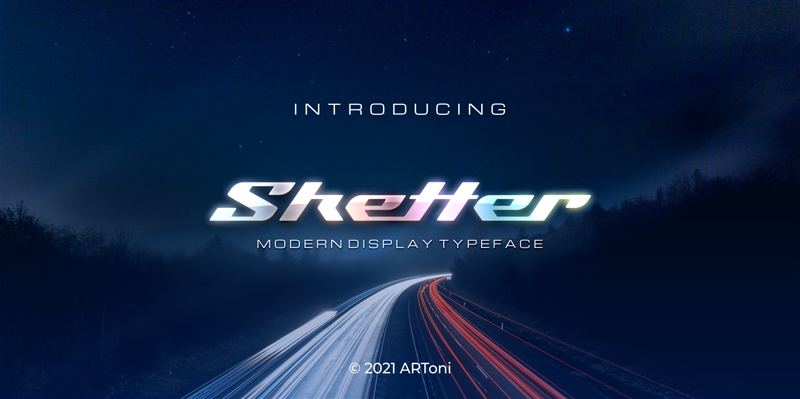
Preview and download Sketter Font. Created by Anthonie Van Hayu in Techno Sci-fi styles with Free for personal use license.
Sketter is a modern display typeface. Get inspired by aerodynamic. the name adopted from skeeter, skater and scooter those darted and weaved. By installing or using this font, you are agree to the Product Usage Agreement: This font is ONLY for PERSONAL USE. NO COMMERCIAL USE ALLOWED! You are requires a license for PROMOTIONAL or COMMERCIAL use. Any question feel free to ASK ayuda.smd@gmail.com THANKS ------------------- INDONESIA: Dengan meng-install font ini, anda dianggap mengerti dan menyetujui semua syarat dan ketentuan penggunaan font dibawah ini: 1. Font ini hanya dapat digunakan untuk keperluan "Personal Use", atau untuk keperluan yang sifatnya tidak "komersil", alias tidak menghasilkan profit atau keuntungan dari hasil memanfaatkan/menggunakan font saya. Baik itu untuk individu, Agensi Desain Grafis, Percetakan, atau Perusahaan/Korporasi. 2. DILARANG KERAS menggunakan atau memanfaatkan font ini untuk keperluan Komersial, baik itu untuk Iklan, Promosi, TV, Film, Video, Motion Graphics, Youtube, atau untuk Kemasan Produk ( baik Fisik ataupun Digital) atau Media apapun dengan tujuan menghasilkan profit/keuntungan. 3. Menggunakan font ini untuk kepentingan Komersial apapun bentuknya TANPA IZIN dari saya, akan dikenakan biaya EXTENDED LICENSE atau 100 kali lipat dari Lisensi Standard. Informasi tentang Lisensi apa yang akan anda perlukan, silahkan menghubungi saya: More... |